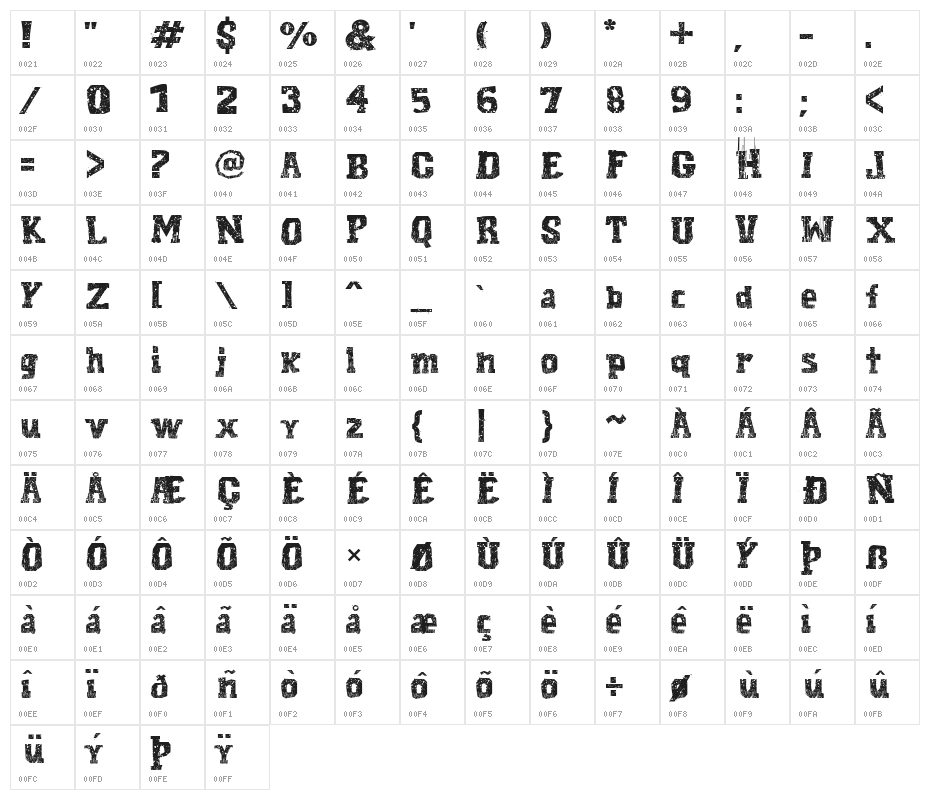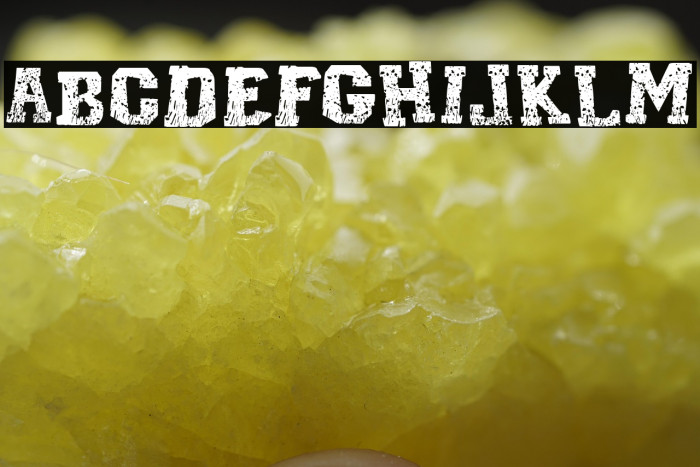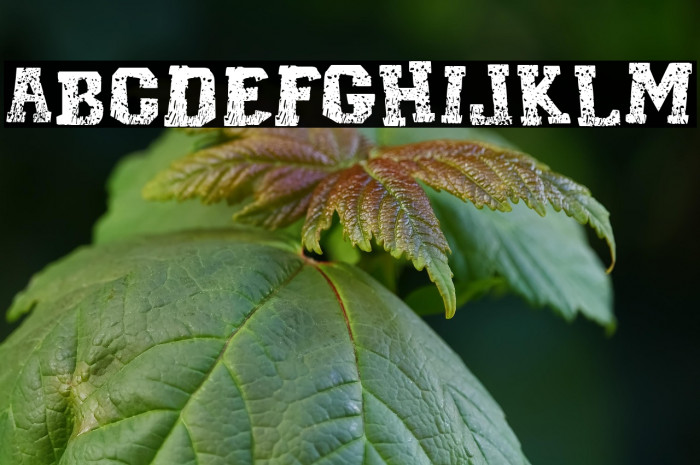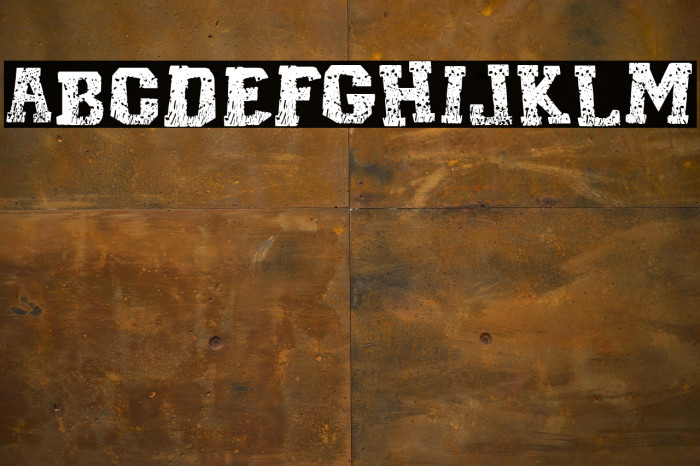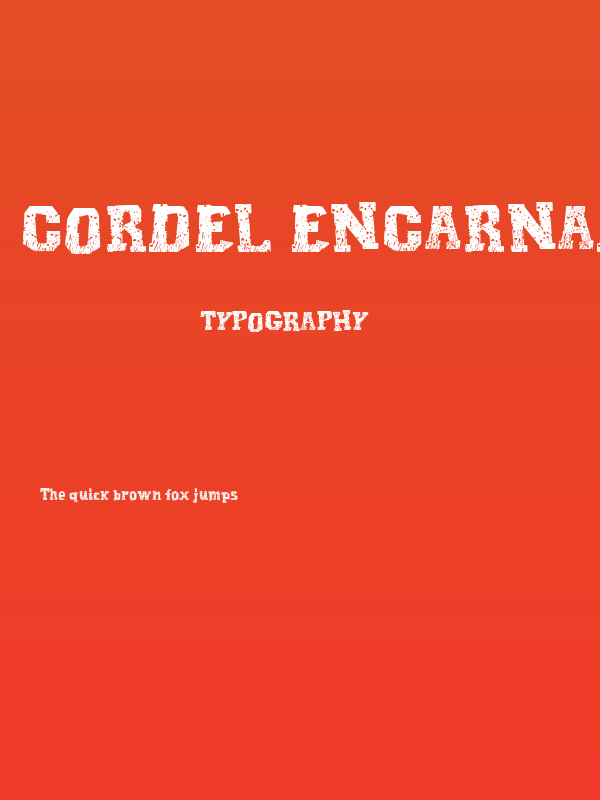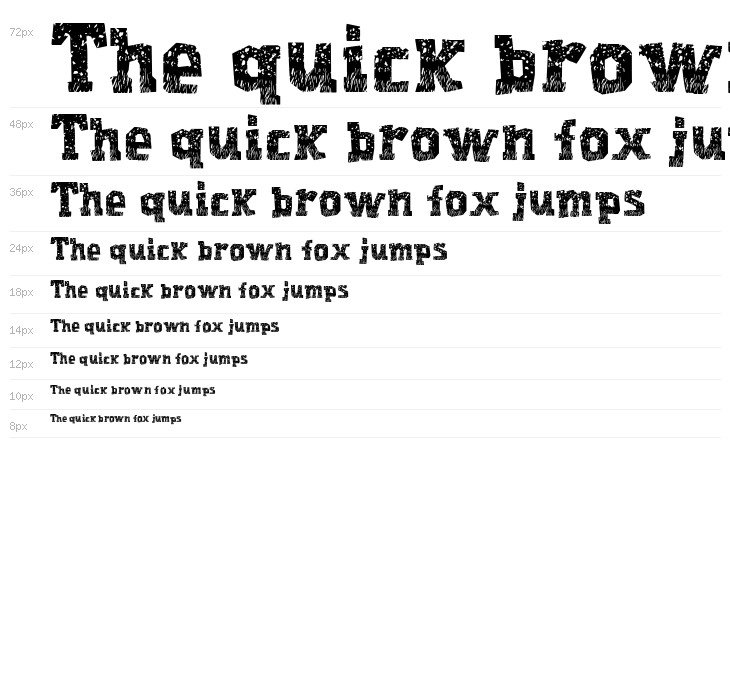
Cordel Encarnado Font
Cordel Encarnado Description
This font features a rugged, textured appearance reminiscent of traditional woodcut prints. Each character is bold and heavily distressed, giving it a handcrafted, vintage feel. The rough edges and irregularities in the letterforms create a sense of authenticity and rustic charm. The uppercase and lowercase letters maintain a consistent style, with the numbers and special characters following suit. This font is ideal for projects that require a touch of nostalgia or a handcrafted aesthetic.
| Proposed Projects | Perfect for posters, book covers, branding, and any design that seeks a vintage or handcrafted look. |